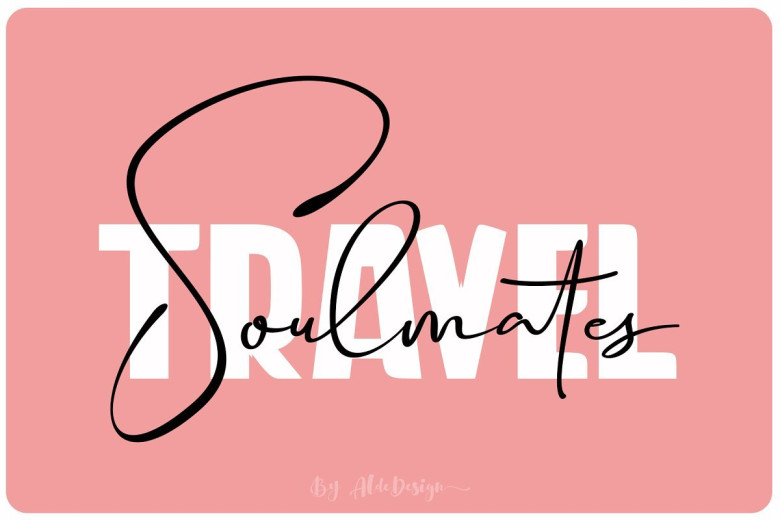
Travel Soulmates Font Duo
Hello world..!! This is the best free font package available today, it is a duo font. A perfect combination between signature and sans font, please download and enjoy. Introducing Travel Soulmates Font! Travel Soulmates – Font Duo is a font with simple and classy taste, comes with signature and Weight (bold sans) variations, opentype features such as ligatures. Travel Soulmates is the great choice for watermark on photography, signature or signature logo design, album cover, business card, quotes, and many other design project.